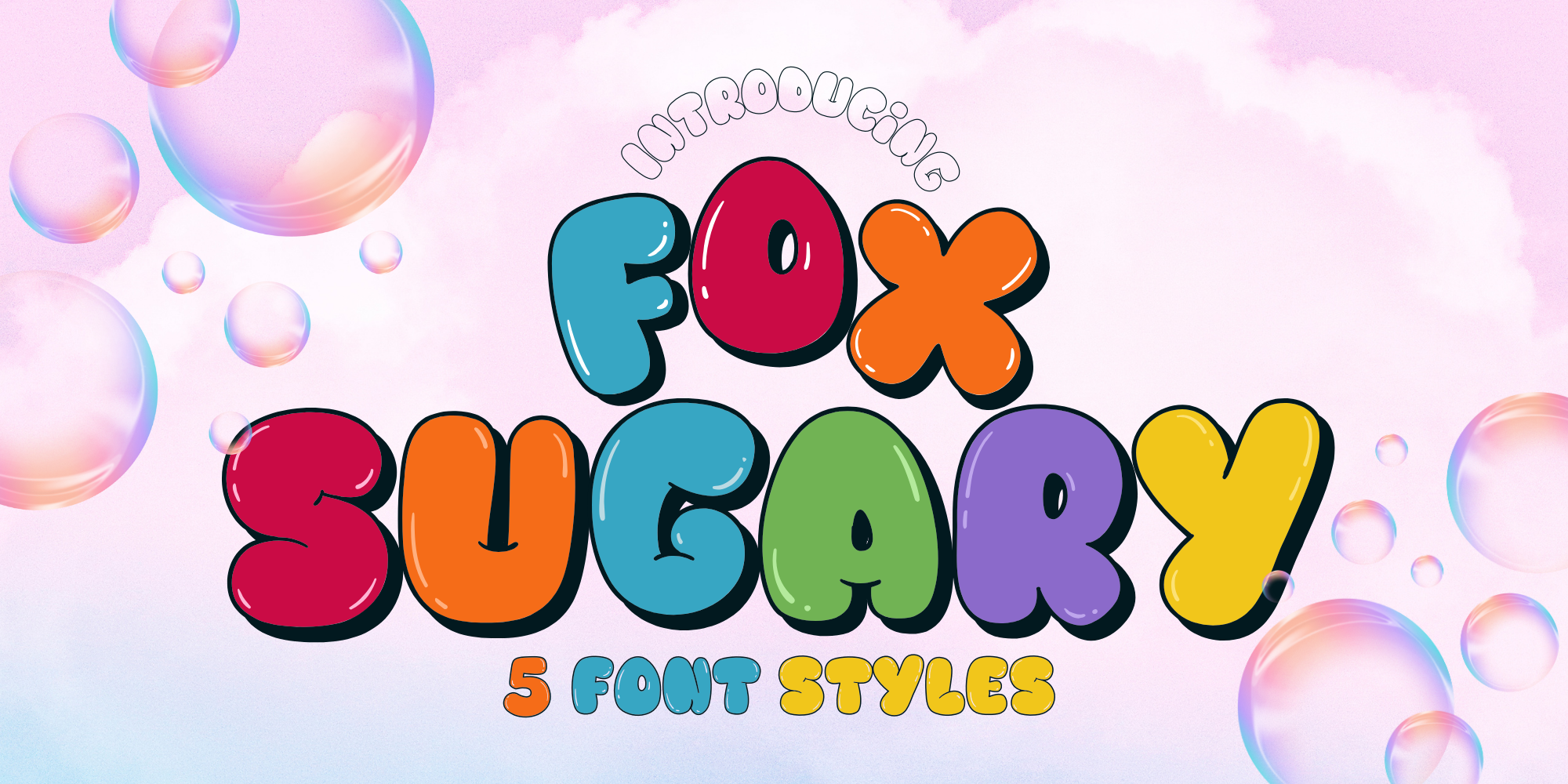
Fox Sugary Font excels in various design applications including candy packaging, children's book covers, sweet shop branding, bakery logos, ice cream advertisements, toy packaging, birthday party invitations, and playful social media graphics. This delightful typeface adapts charmingly to both colorful digital campaigns and whimsical print materials, making it perfect for designers seeking sweetness and playful charm in their visual communications.
Fox Sugary Font generates excitement among creative professionals due to its adorable character and sweet styling that instantly conveys joy and playfulness. The font's bubbly letterforms and cheerful proportions create an immediate sense of happiness and childhood wonder. Its cute personality makes it particularly appealing for brands wanting to communicate fun, sweetness, and family-friendly warmth in their visual identity.
The Fox Sugary Font family includes multiple weights and styles such as Regular, Bold, Light, Outline, and Shadow variations. Each family member maintains playful design principles while offering distinct sweet characteristics. The Light weight provides gentle sweetness for delicate applications, while the Bold version delivers candy-coated impact for attention-grabbing headlines and festive celebrations.
Design enthusiasts frequently choose Fox Sugary Font Free Download for projects requiring both playful appeal and brand distinction. This typeface demonstrates exceptional versatility across family-oriented industries including confectionery, children's products, entertainment, and celebration brands. Its sweet character allows organizations to communicate joy while maintaining excellent readability and delightful visual charm.